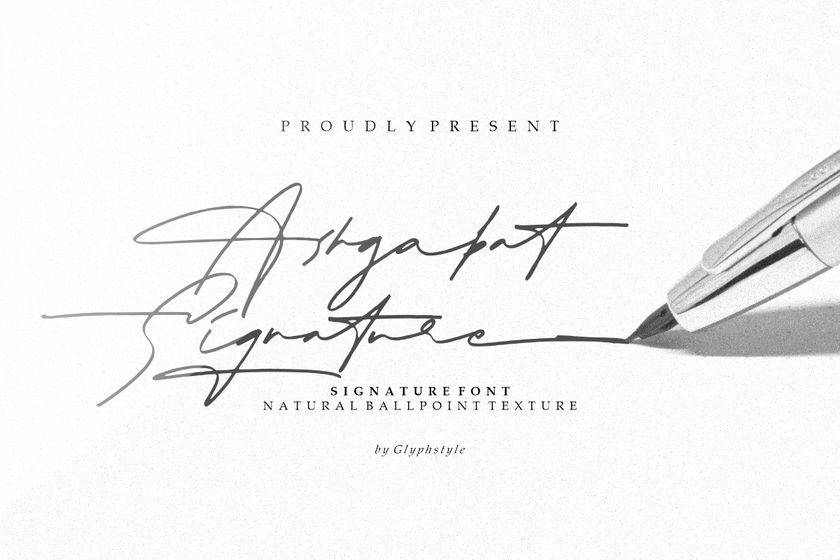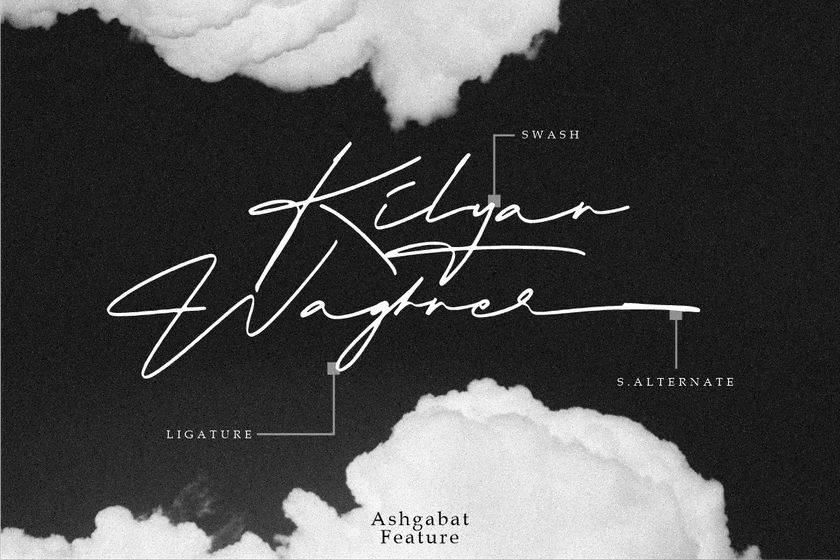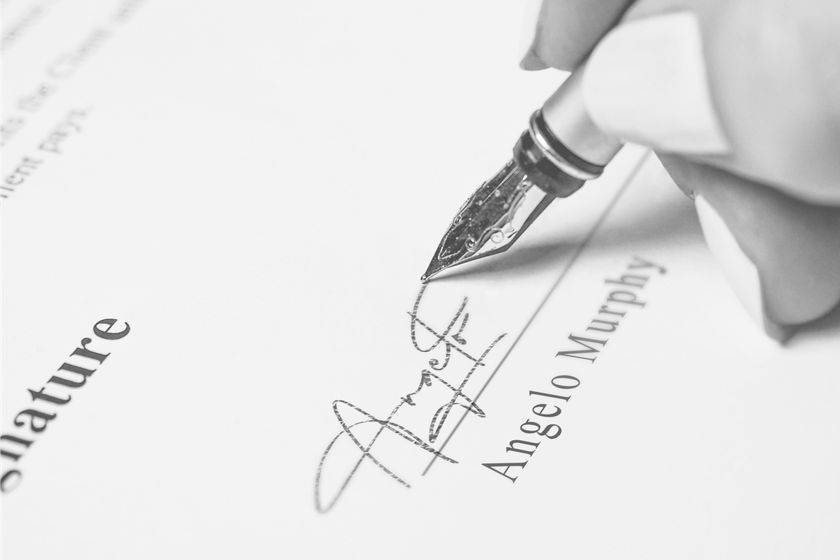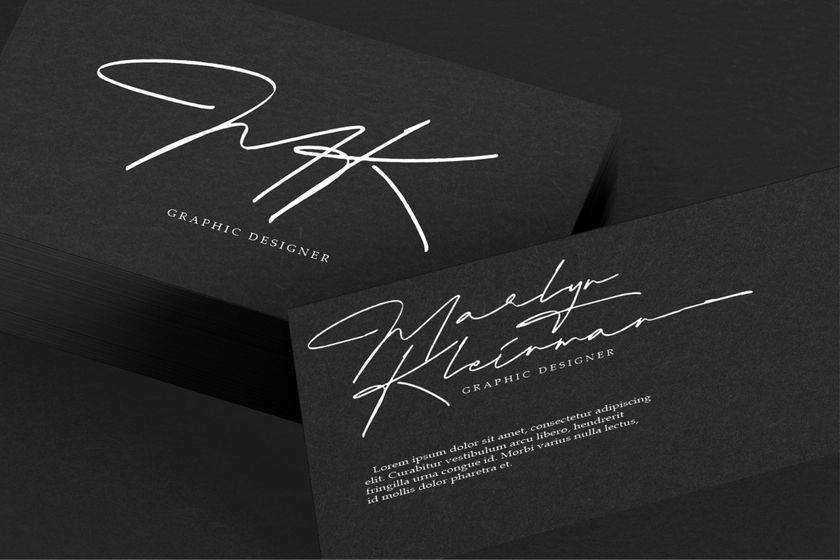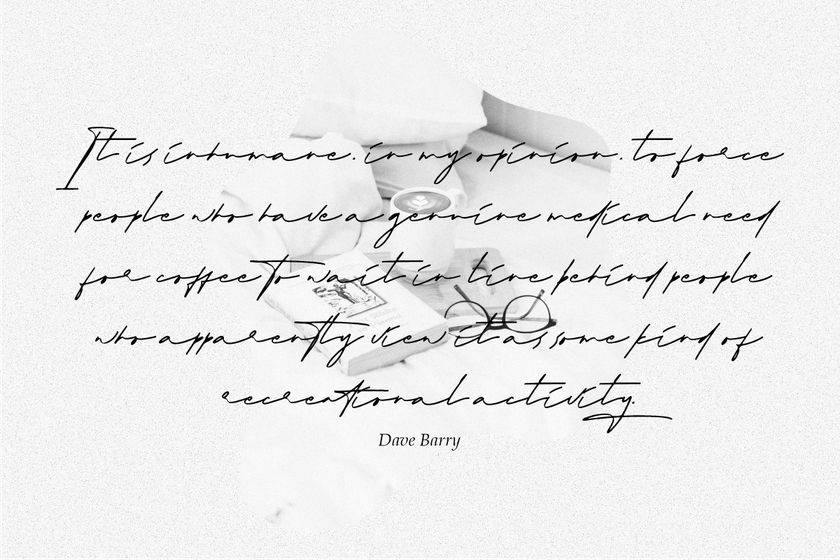
Ashgabat Natural Signature is a delicate, cursive script font that mimics elegant handwriting with its thin, flowing strokes and graceful, irregular letterforms. It exudes a personal and artistic charm, making it perfect for branding projects that require a natural, sophisticated, and intimate feel, such as luxury logos, wedding invitations, and stylish editorial designs. Its airy spacing and organic movement add a refined touch that enhances any design seeking warmth and personality.
Ashgabat Natural Signature Font
About Ashgabat Natural Signature Font
| Font family | Ashgabat Natural Signature Font |
| Designer | GlyphStyle |